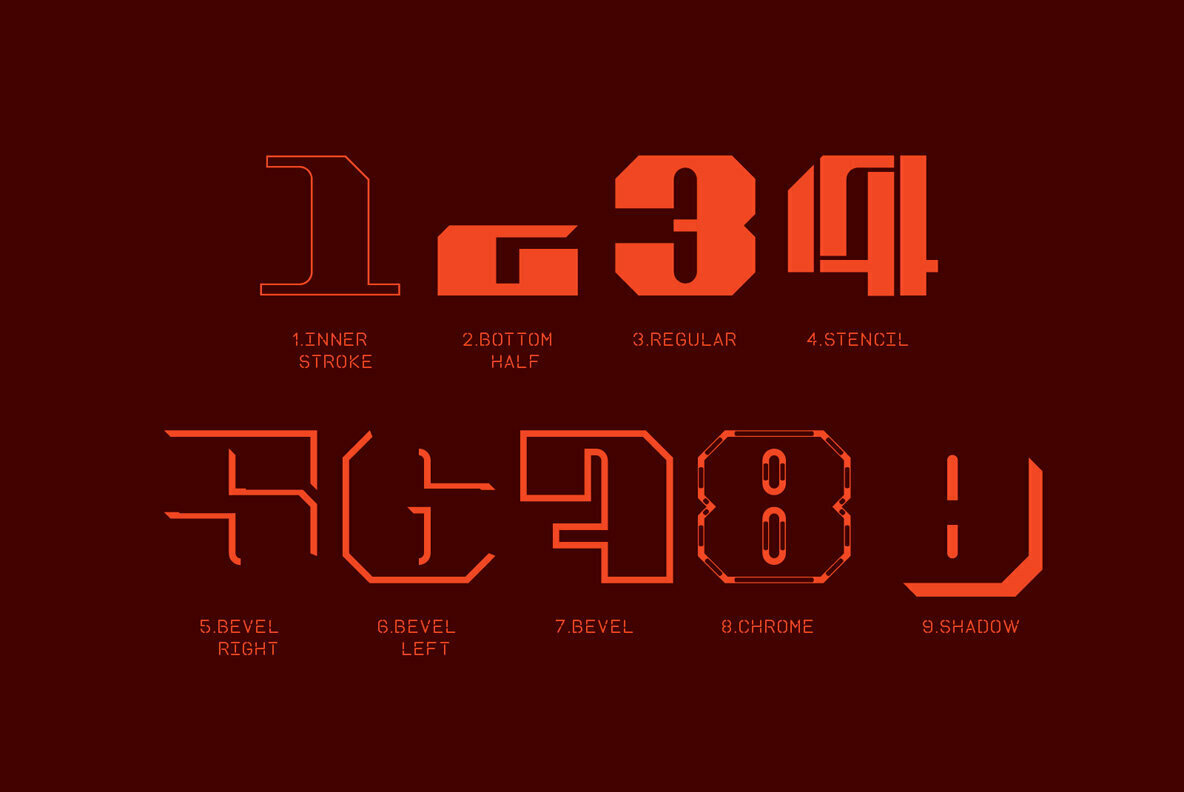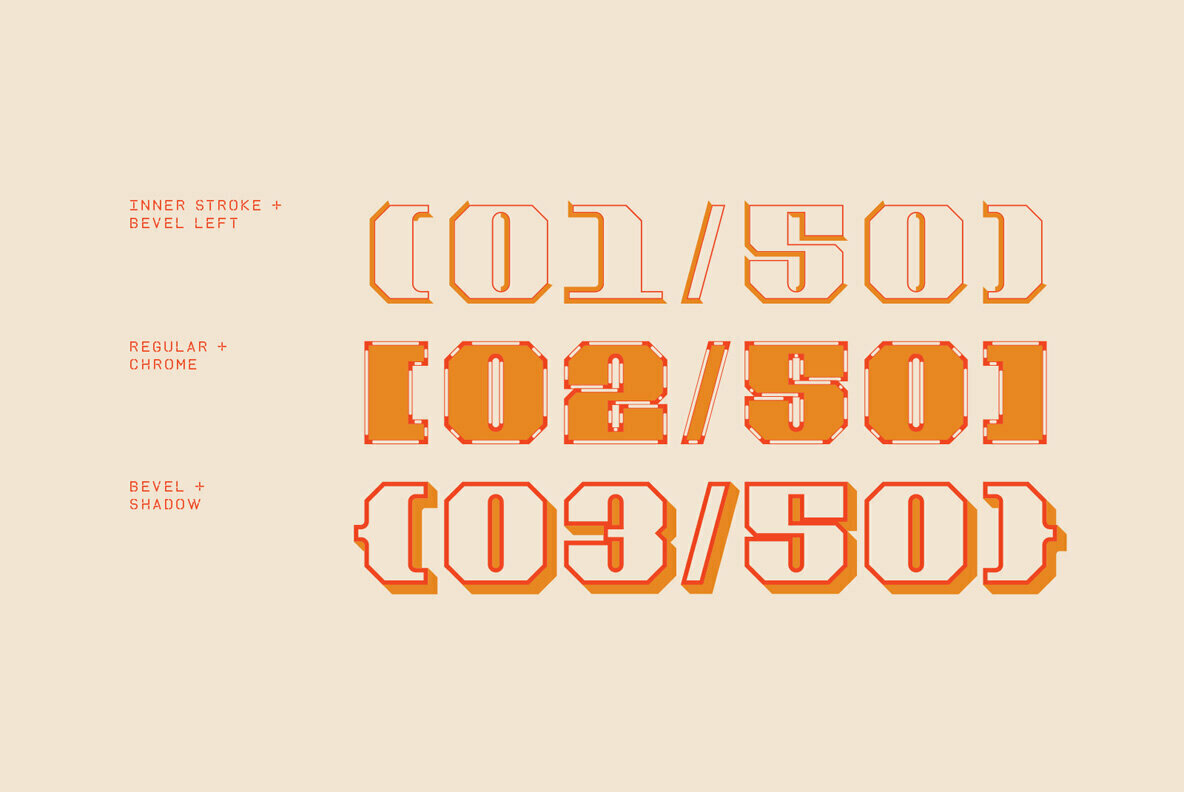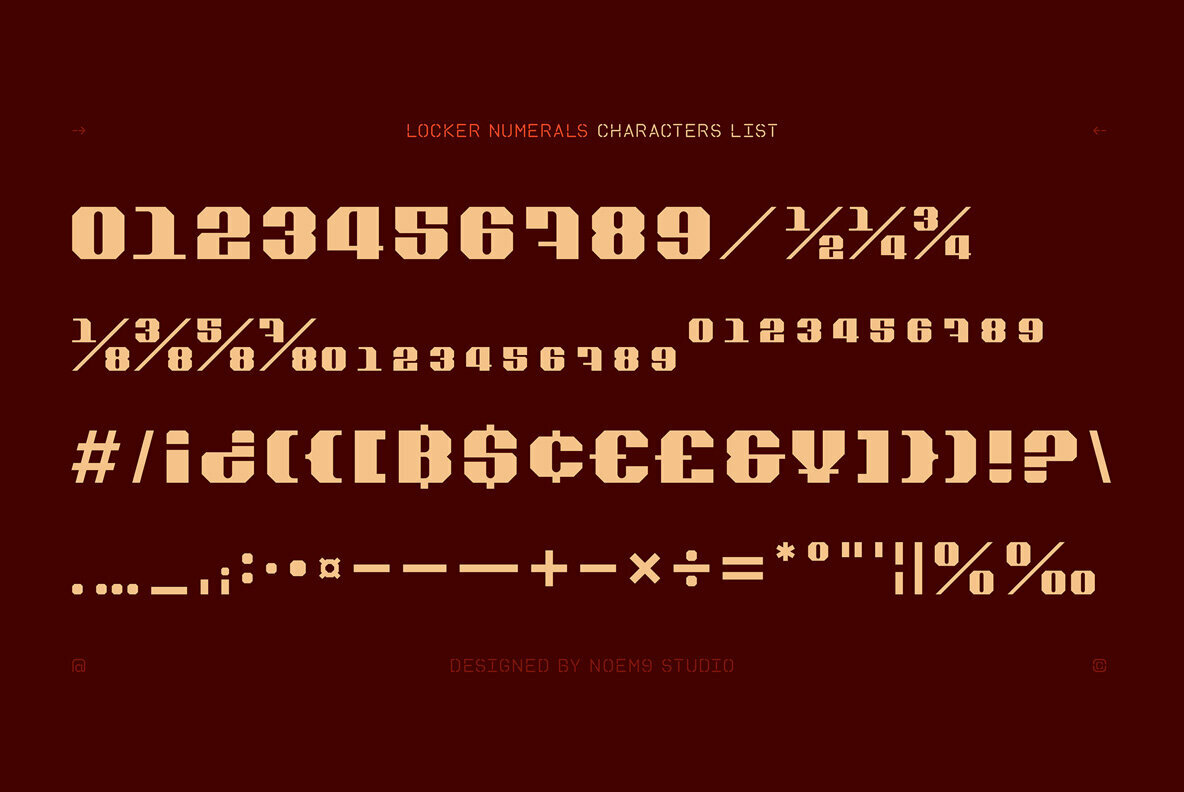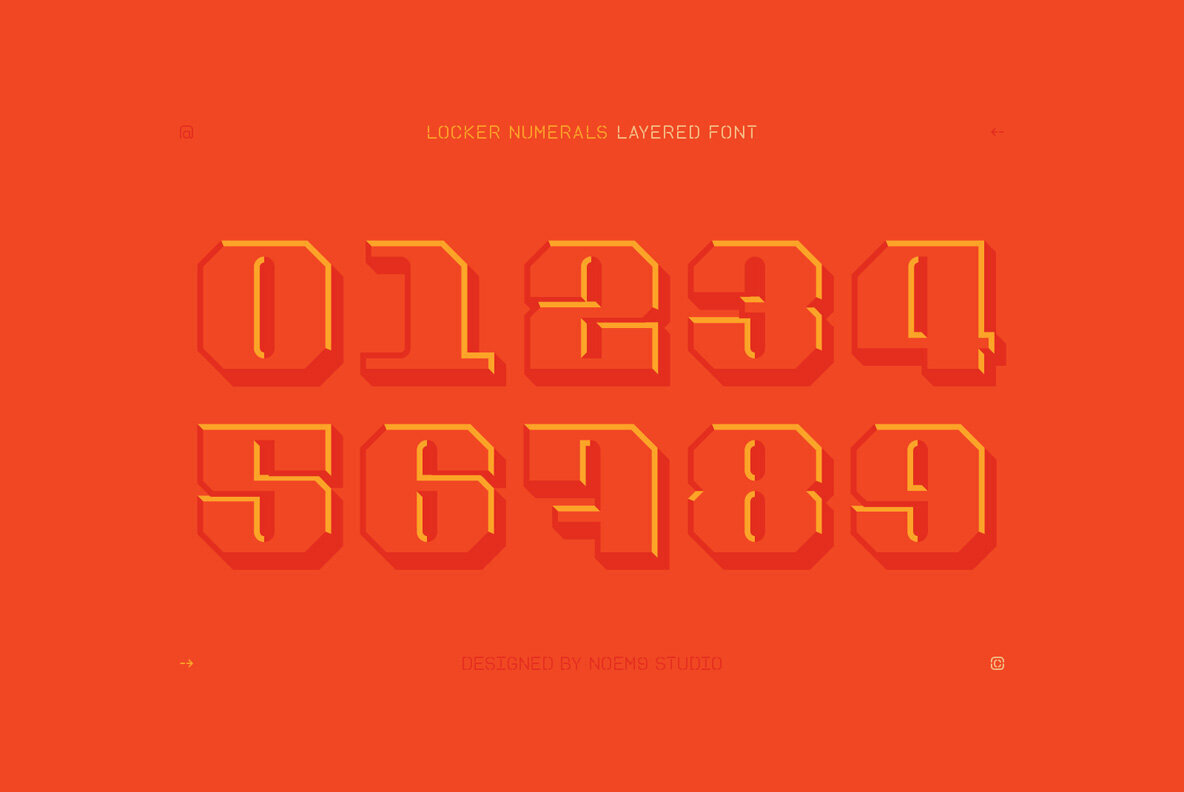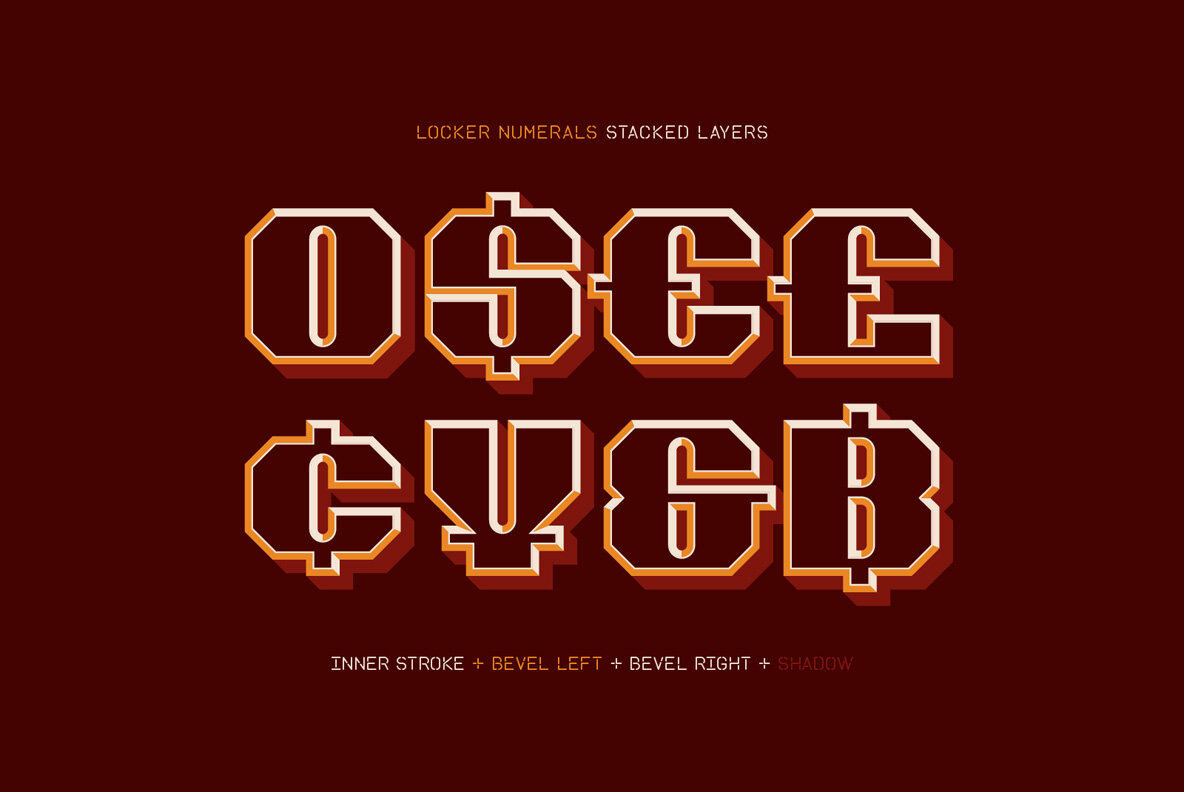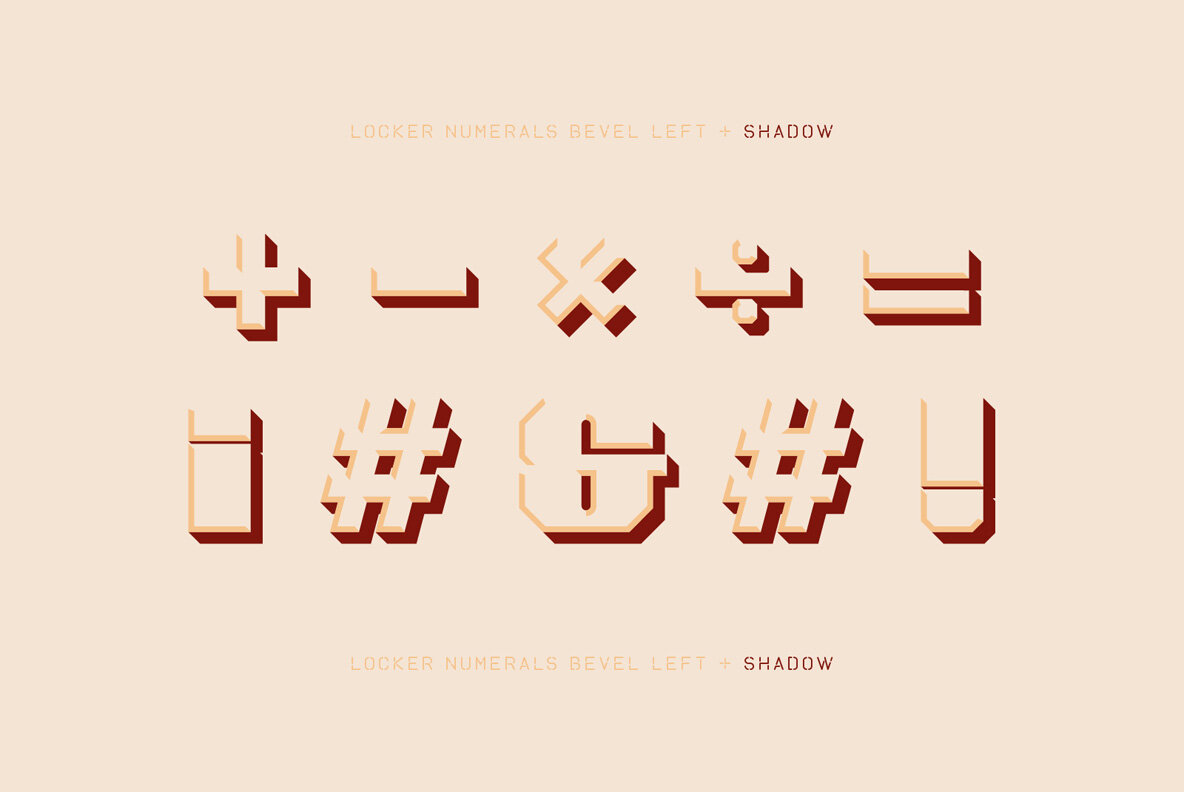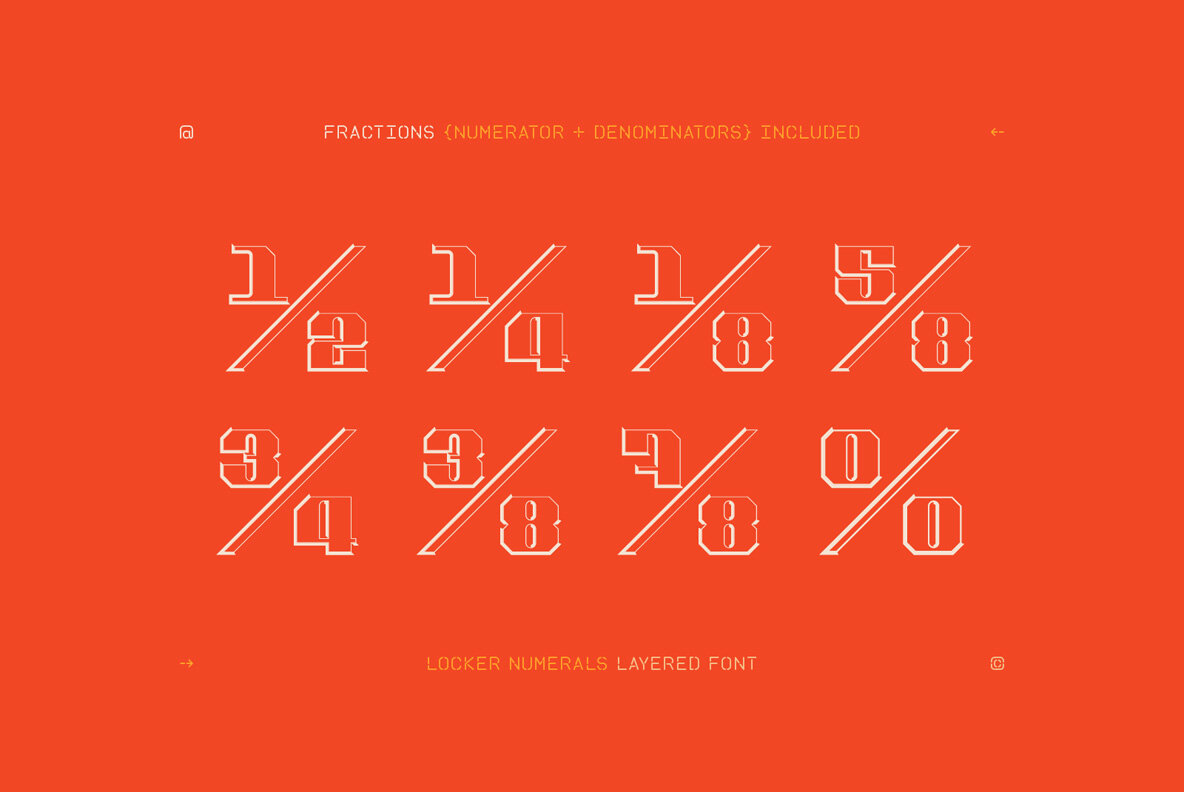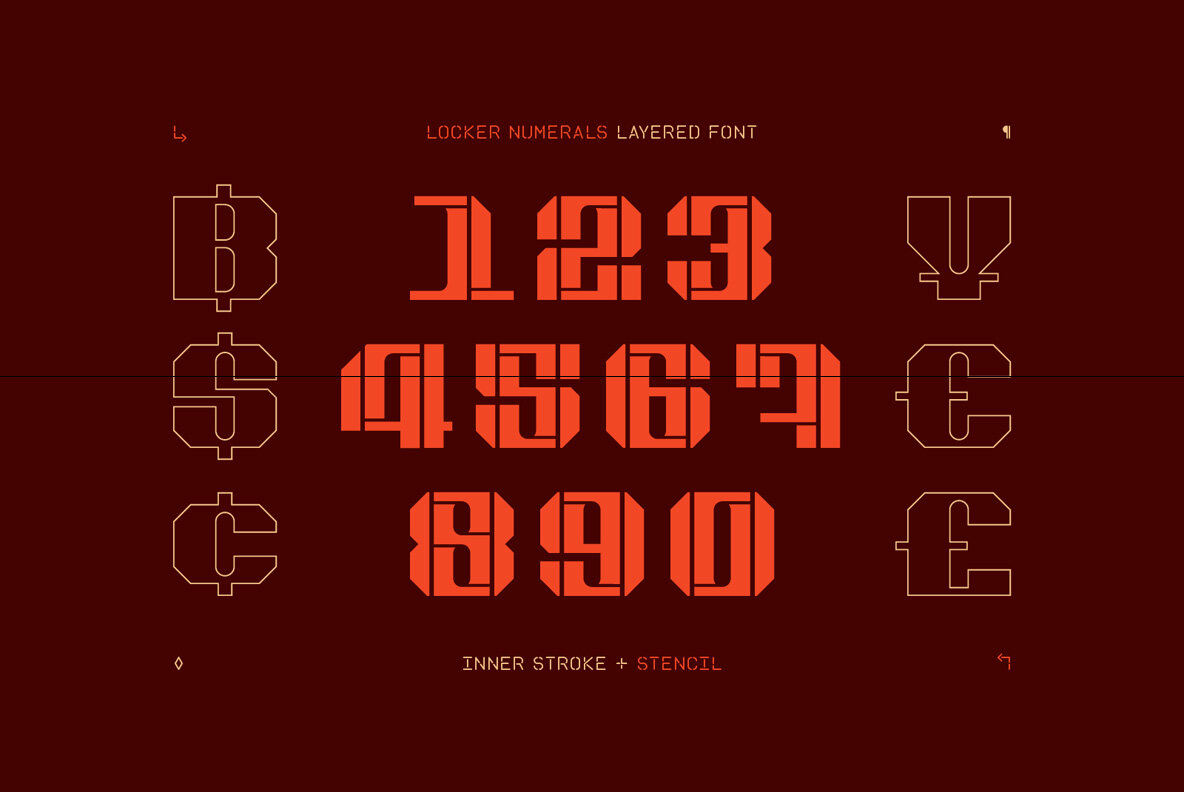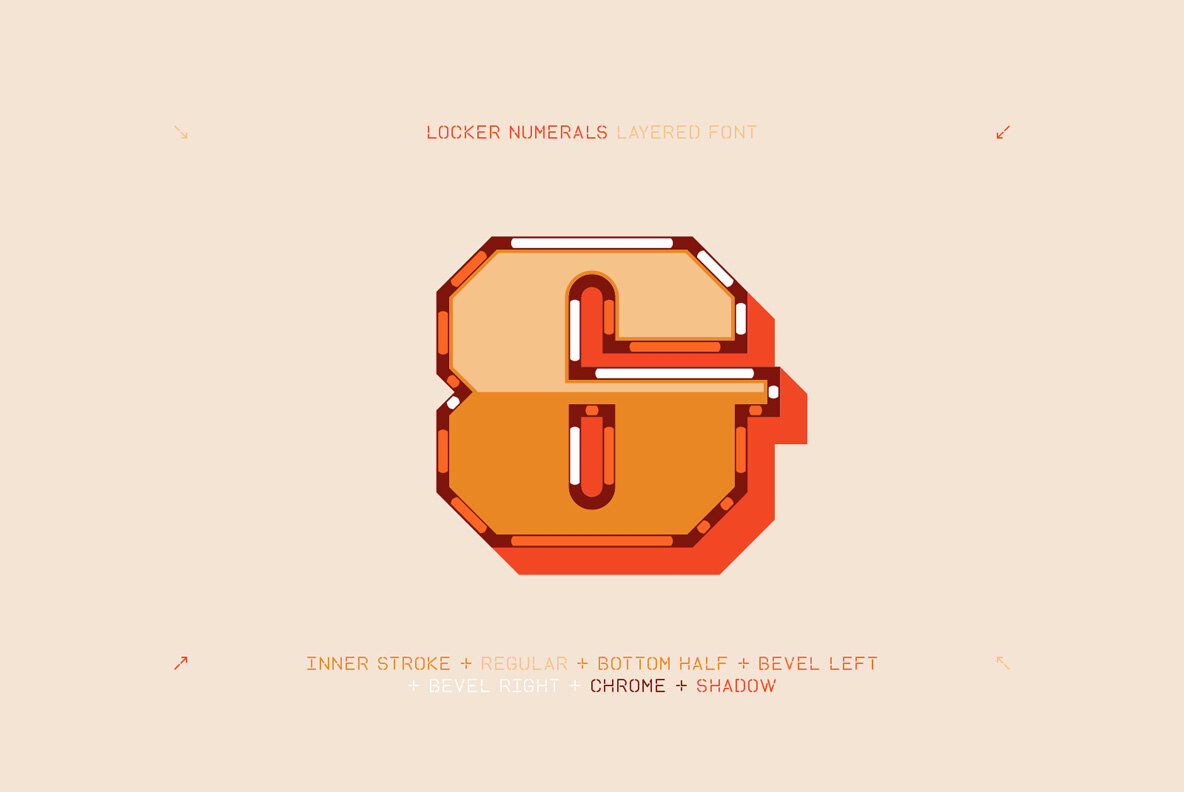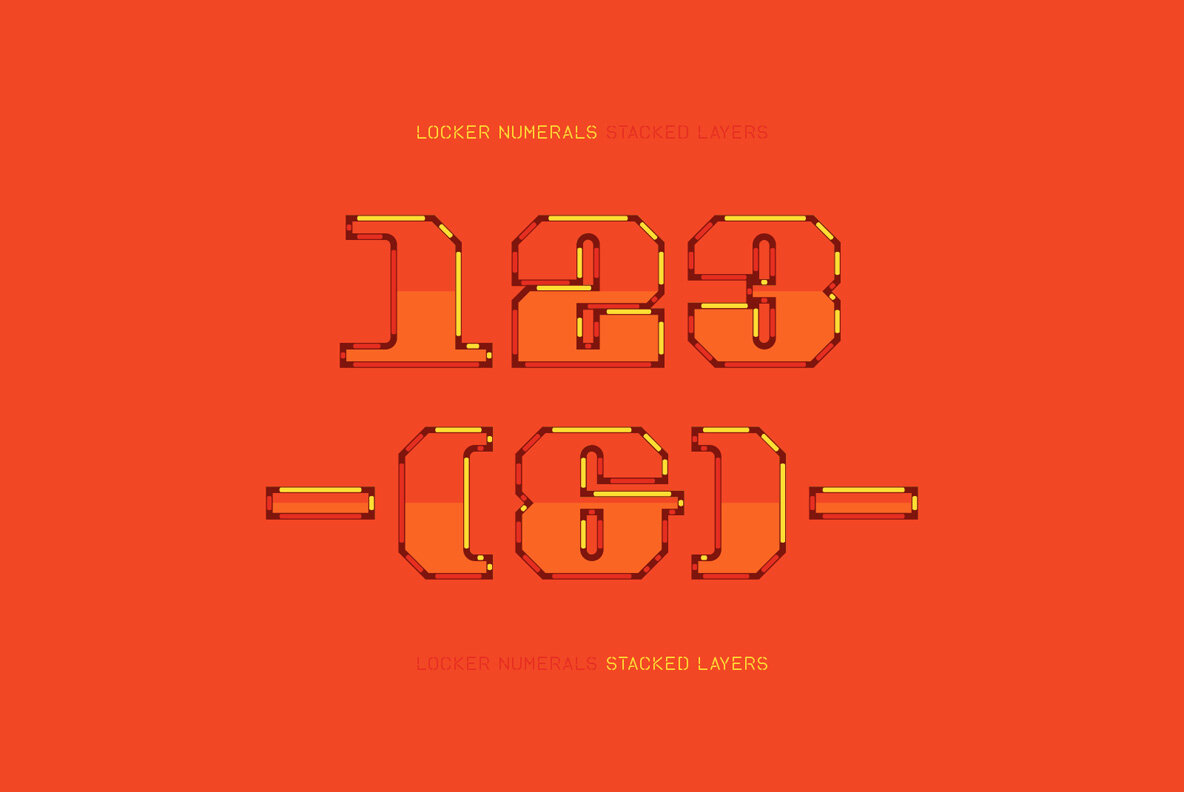
Locker Numerals Font
Locker Numerals is a color font with a geometric structure inspired by sports design. It includes numbers, symbols, and punctuation. Its potential is increased with the 9 styles which offer different moods.
It comes with 9 different styles: Inner Stroke, Bottom Half, Regular, Bevel Left, Bevel Right, Bevel, Chrome, Shadow & Stencil that you can select and/or stack together depending on your needs.
- More than 100 Glyphs
- 9 Styles (Inner Stroke, Bottom Half, Regular, Stencil, Bevel Left, Bevel Right, Bevel, Chrome, & Shadow)
- Punctuation & Currency Symbols
- Fractions (Numerators & Denominators)
- Lining & Tabular Figures